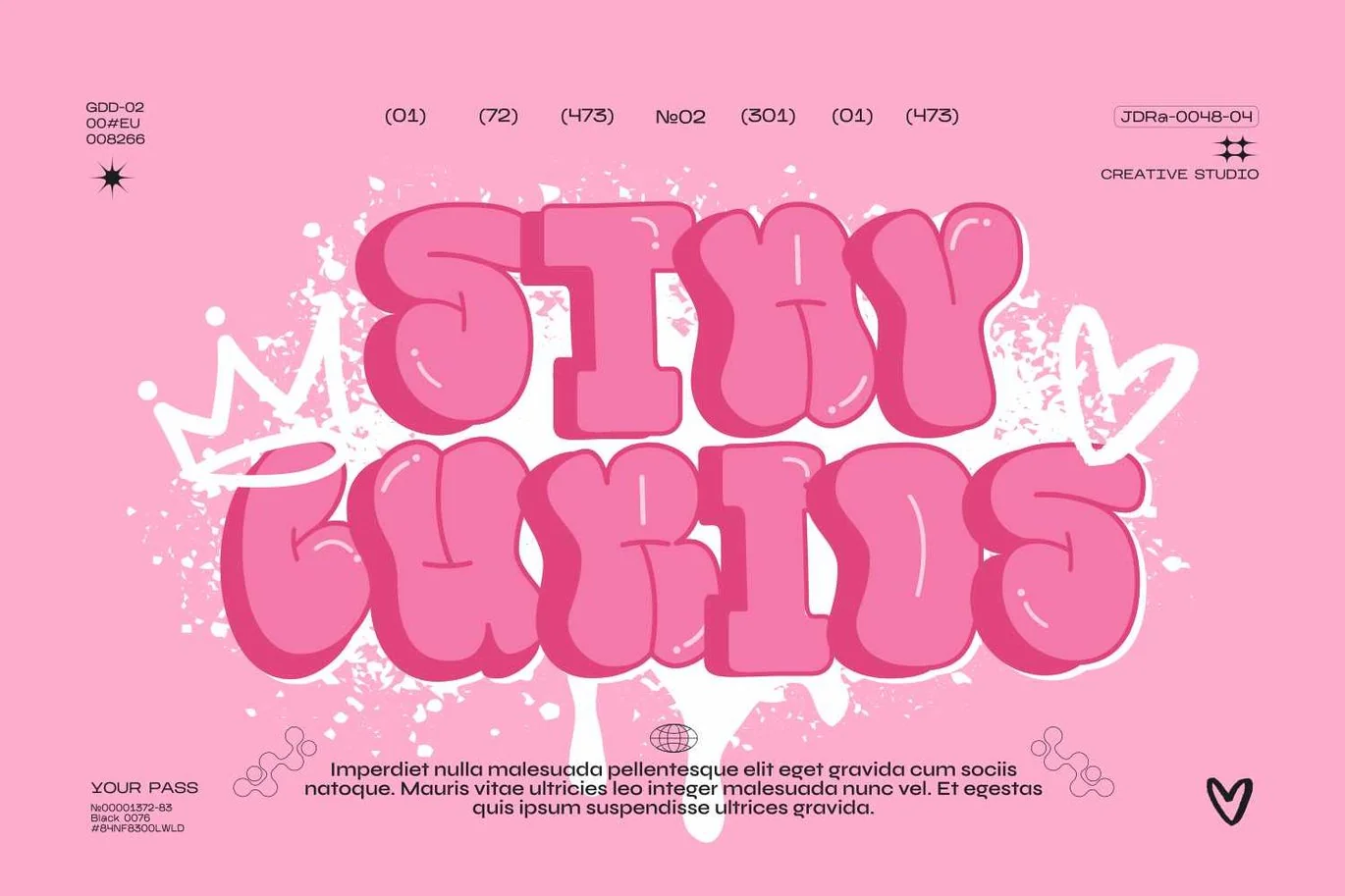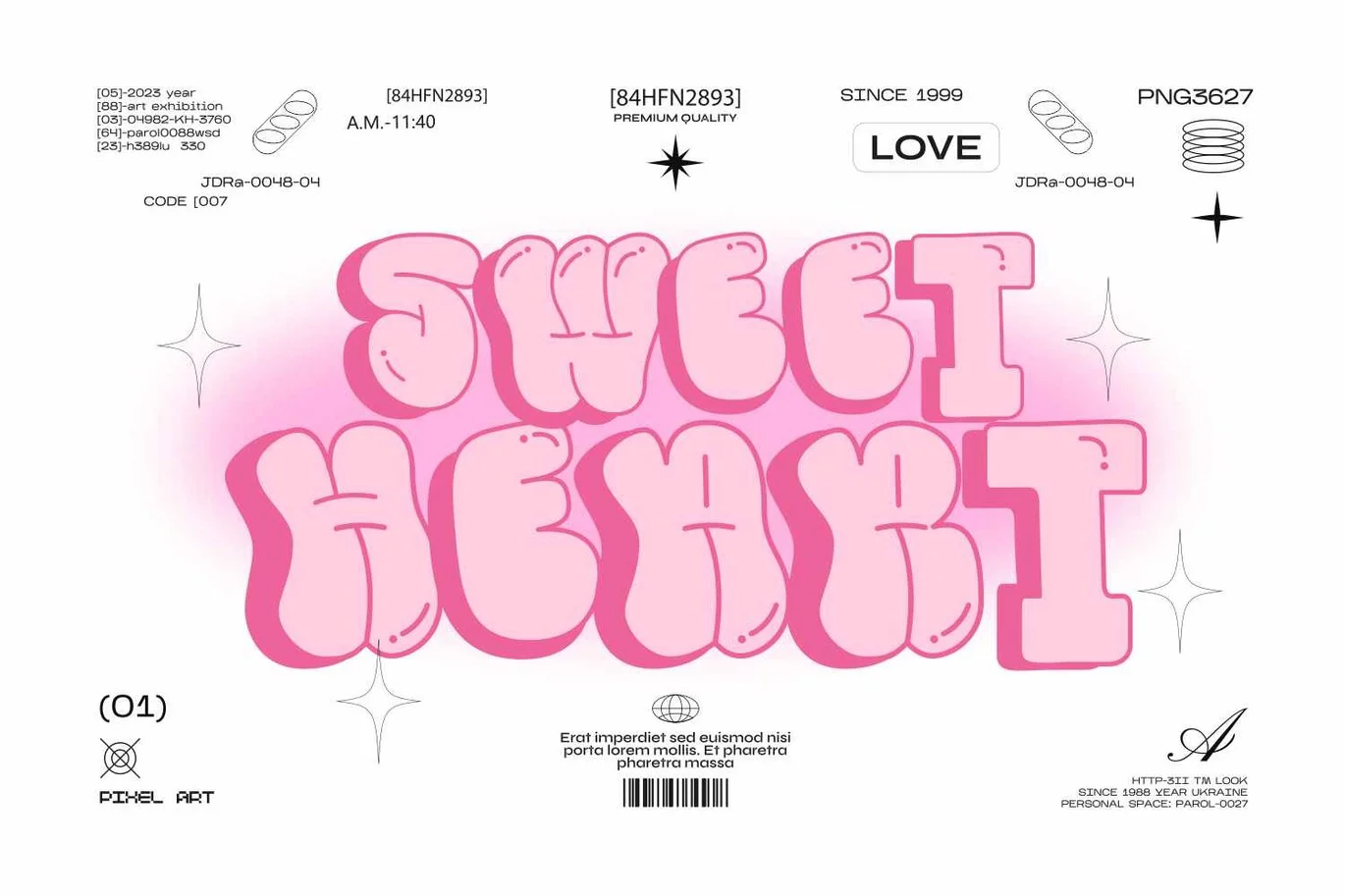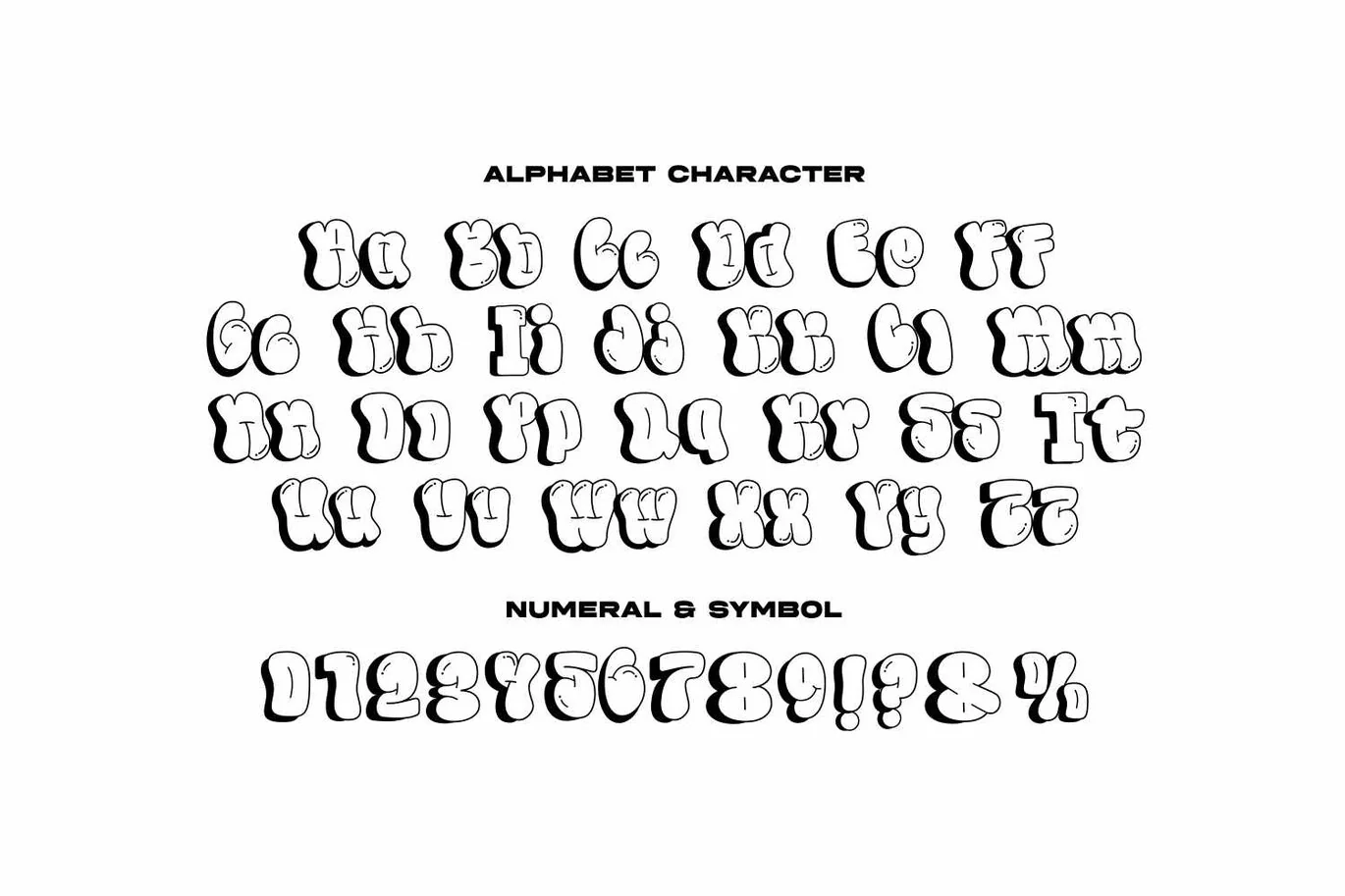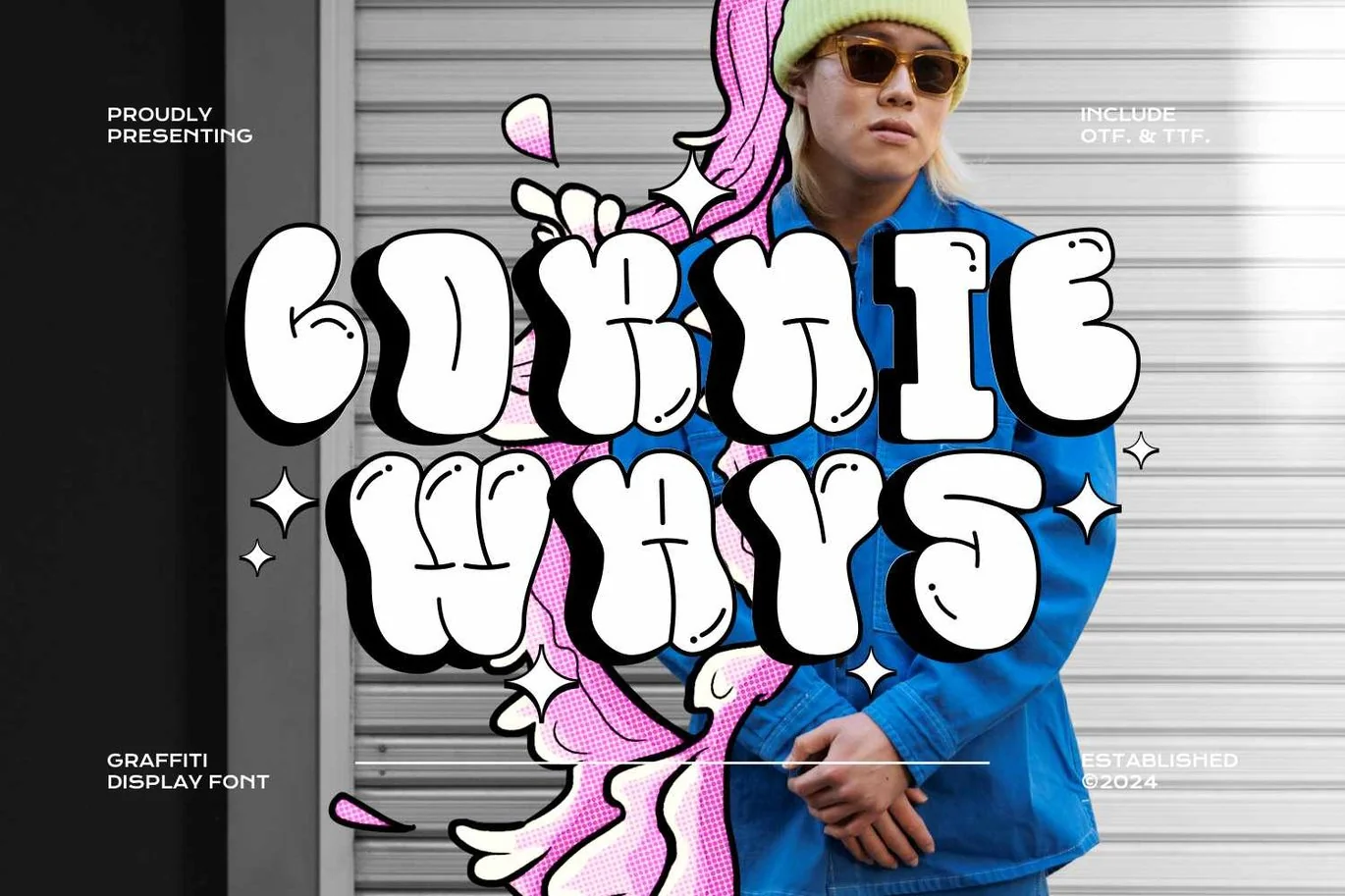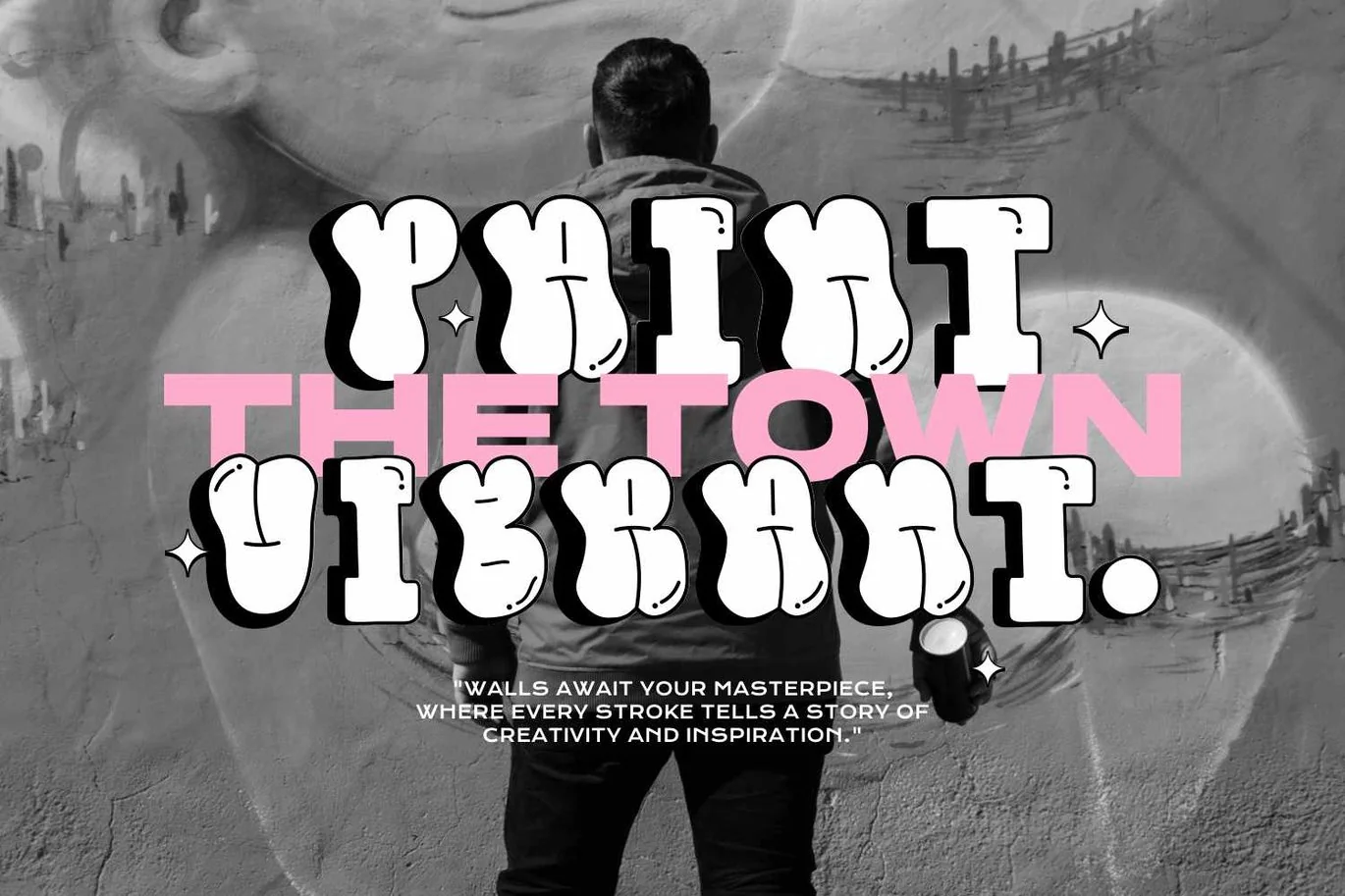
Cornie Ways – 3D Bubble Display Font
Cornie Ways is a 3D bubble display font with a lively appearance that will fill your designs with cheerfulness! Making your work look stunning and attractive.
A versatile font that works in both uppercase and lowercase sizes, suitable for a wide variety of projects such as a display font for headings, logo fonts, invitations, branding, book covers, sticker, card, product packaging, product mockup, mugs, posters, labels, editorials, art deco, and any type of advertising purpose.